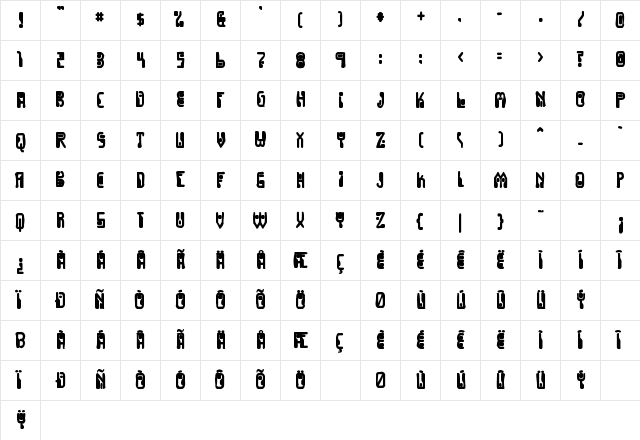
Dignity Of Labour Ink Regular
Design Context for Dignity Of Labour Ink
Dignity Of Labour Ink is a composed and adaptable typeface that performs quietly and consistently across a wide range of design contexts.